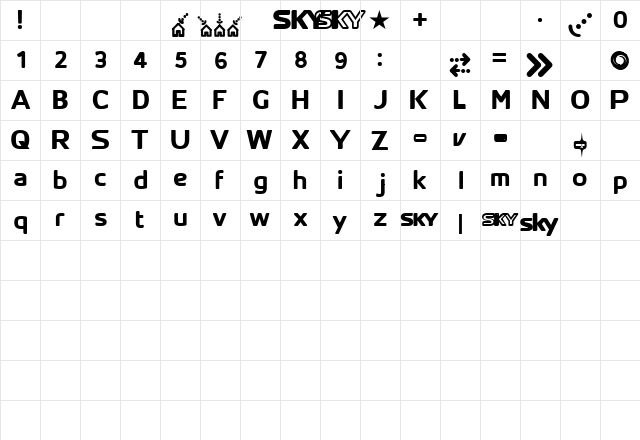
SKYfontThick Regular
Design Context for SKYfontThick Typeface
SKYfontThick takes a measured approach to typography — its balanced proportions and neutral character make it a reliable workhorse for both digital and print work.